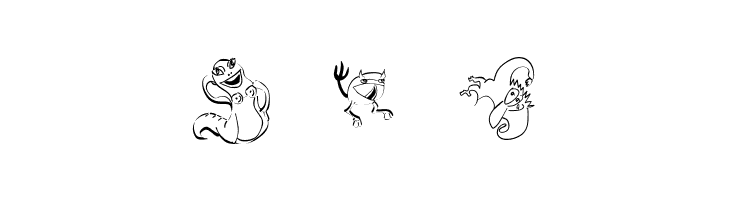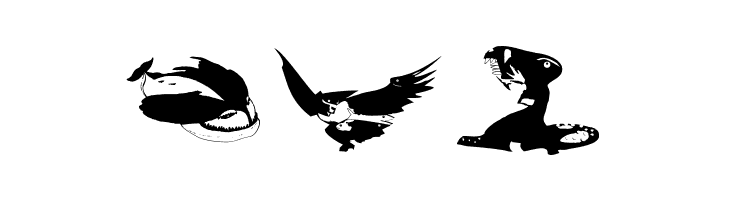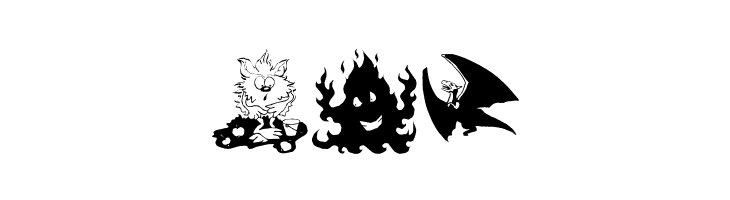
• FantasticCreationsTwo
A decorative collection of fantastical creature illustrations with intricate details.
• FantasticCreatures
A decorative font featuring mythical creatures and intricate designs.
• FantasyBats
Whimsical hand-drawn fantasy creature illustrations.
• FantasyBeings
Whimsical fantasy-themed pictorial font with creature silhouettes.
• FantasyPix
Fantasy-inspired display font with unique illustrated characters.
• FantasyPixTwo
A decorative font featuring detailed fantasy-themed illustrations.
• Fanwood Text
A classic serif font with elegant strokes and balanced structure.
• Fanwood Text Italic
An elegant serif font with an italic slant and moderate contrast, ideal for sophisticated designs.
• Farmers
Farm-themed dingbat font with detailed rural illustrations.
• FarmersLife
Farm-themed dingbat font with cartoon-style illustrations.